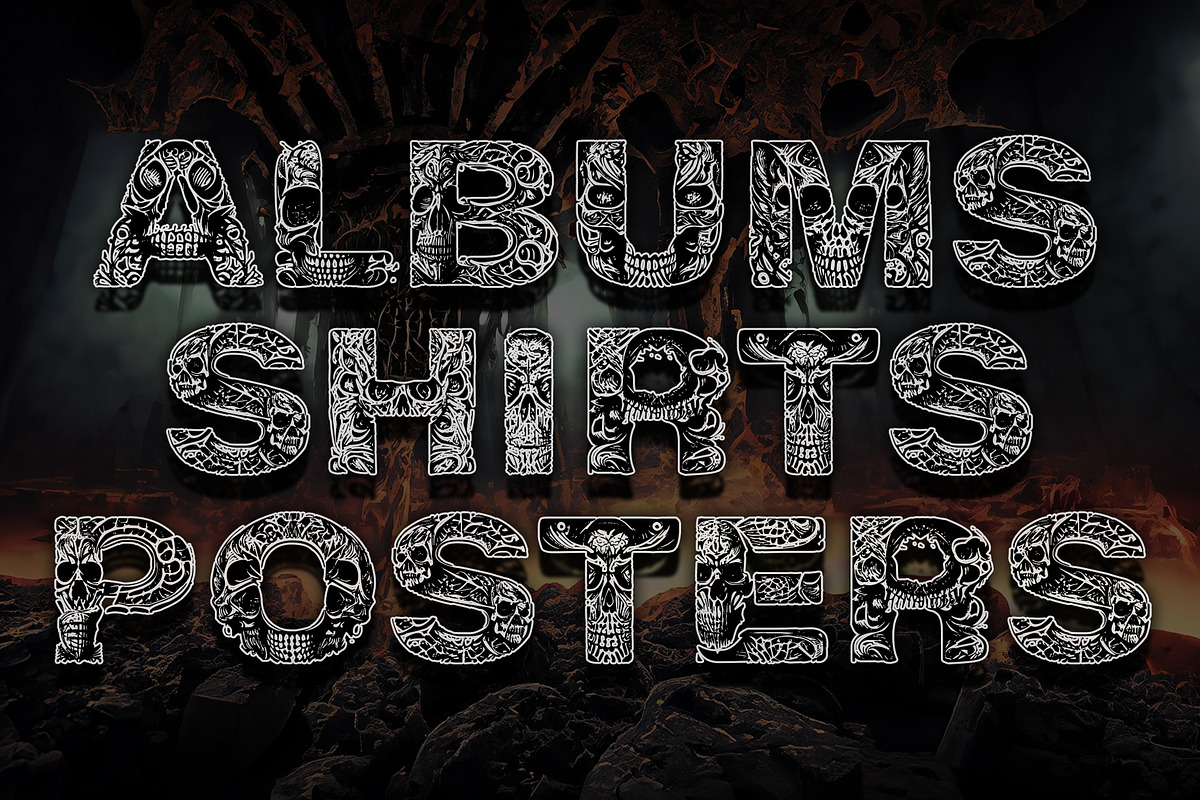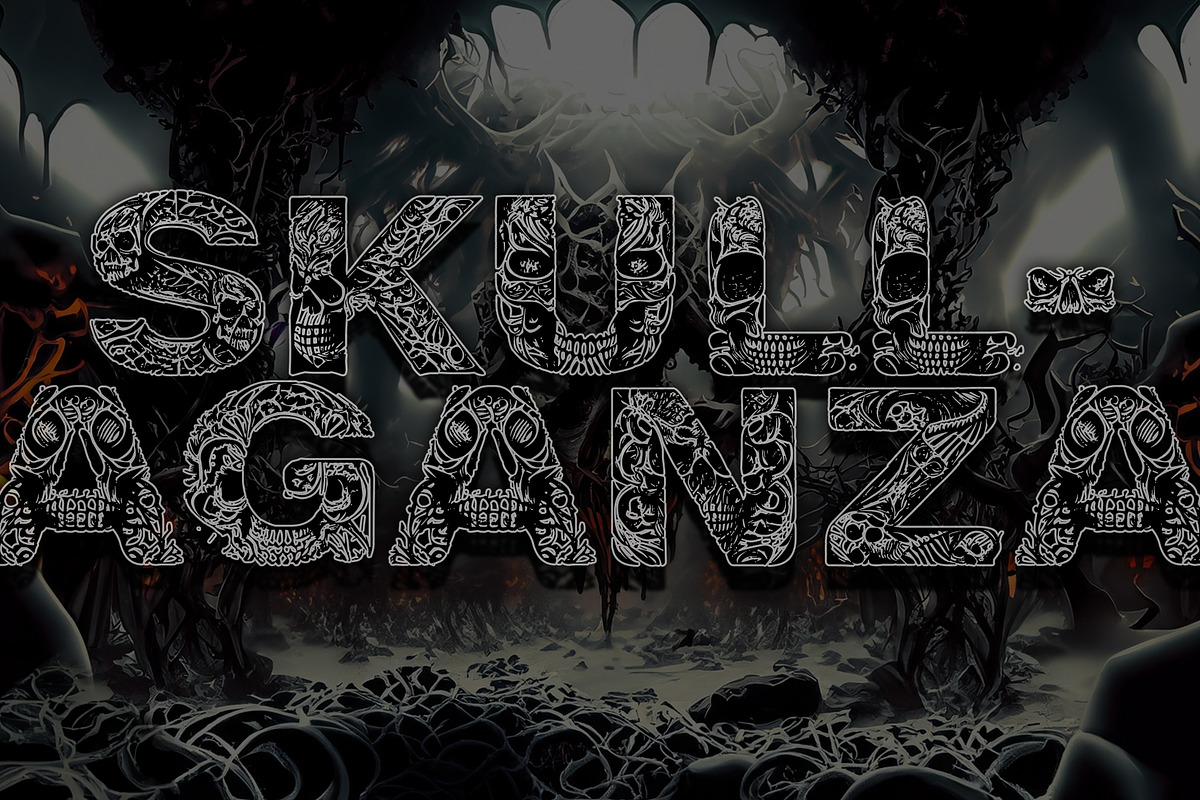
Skullaganza
Introducing Skullaganza, a hauntingly captivating font that embraces the dark allure of skeletal aesthetics. Crafted with meticulous artistry, this unique font showcases letters meticulously designed from skulls and bone-like material, exuding an eerie elegance that mesmerizes and enchants. Whether you're working on horror-themed designs, gothic creations, or seeking to make a bold statement, Skullaganza will infuse your projects with an unmistakable touch of the macabre.
Eerie Elegance: Each letter of Skullaganza is meticulously crafted from skulls and bone-like material, resulting in an aesthetic that is hauntingly elegant.
Mesmerizing Details: The jagged contours and skeletal motifs of Skullaganza give each character a sense of rawness and ethereal dark beauty, captivating viewers with its intricate design.
Versatile Application: Perfect for a wide range of design projects, Skullaganza adds a touch of the macabre to horror movie posters, gothic-themed album covers, tattoo designs, merchandise, and more.
High-Quality: Skullaganza is created with utmost precision and attention to detail, ensuring exceptional quality and legibility even in various sizes and formats.
Extensive Character Set: The font includes a comprehensive range of uppercase and lowercase letters, numbers, symbols, and special characters, providing you with the flexibility to express your creativity fully.